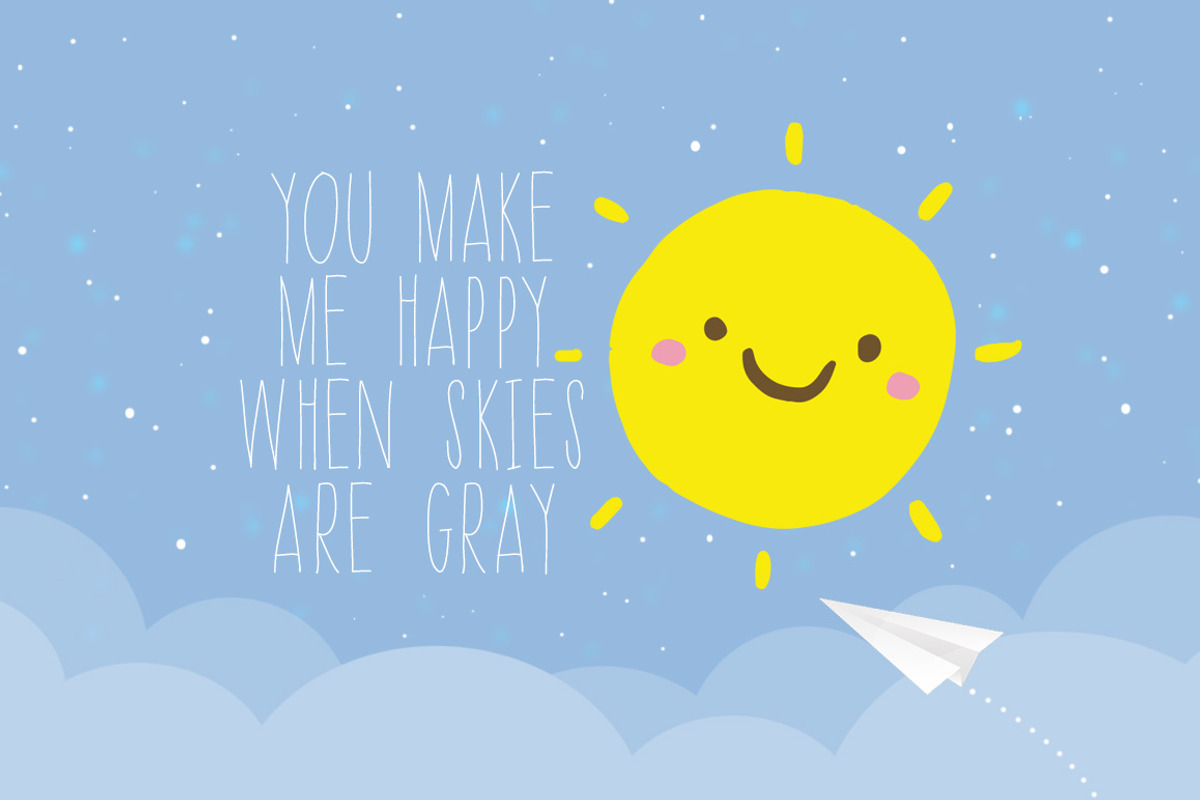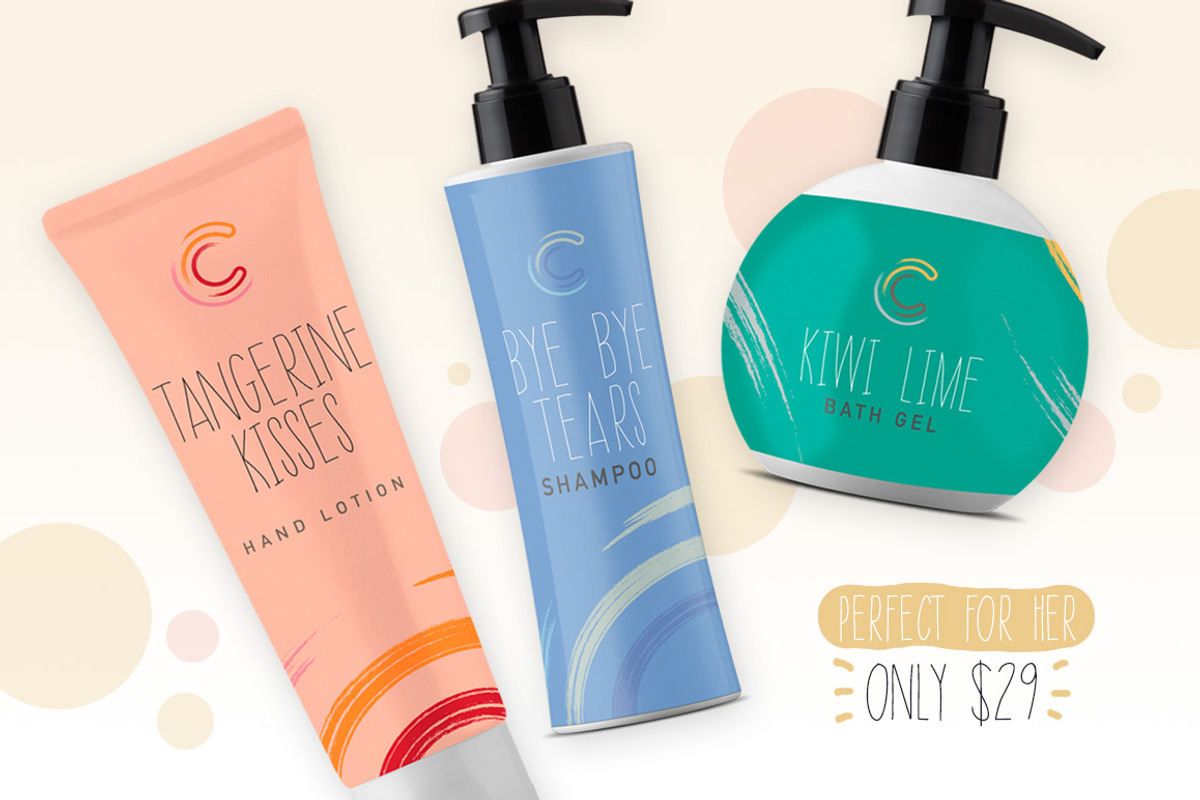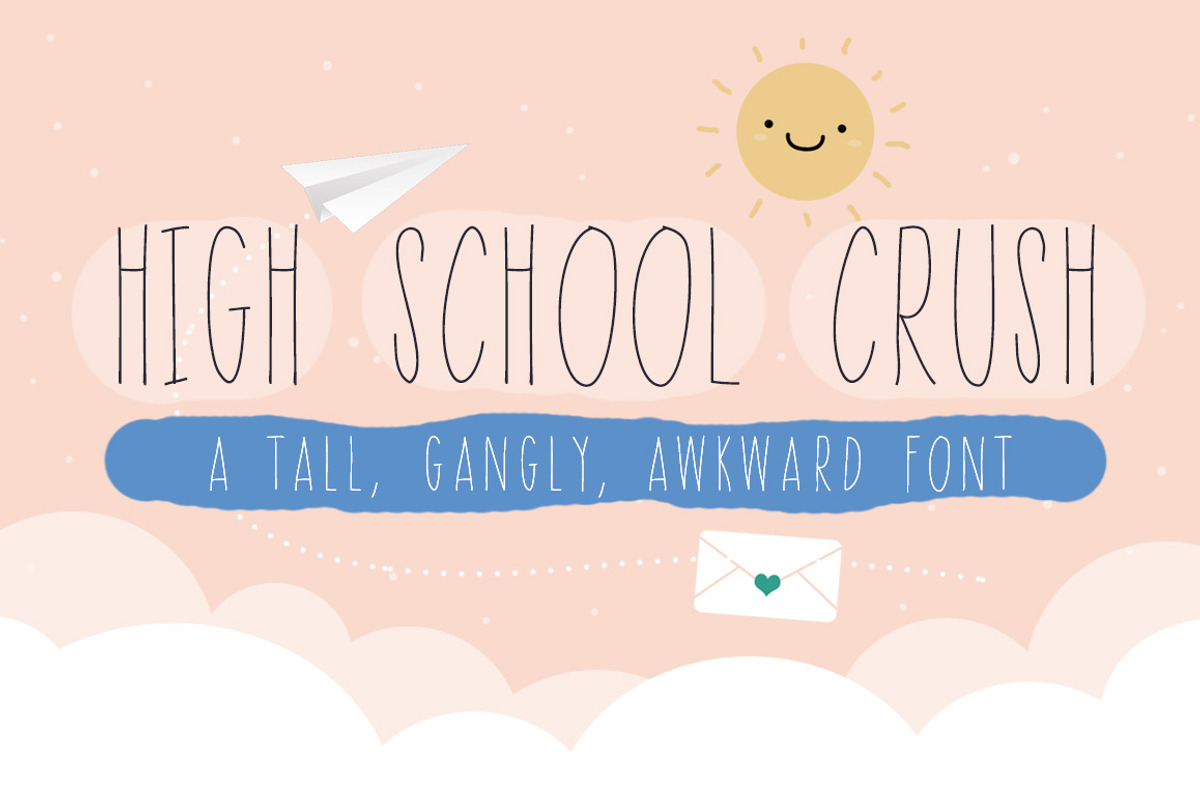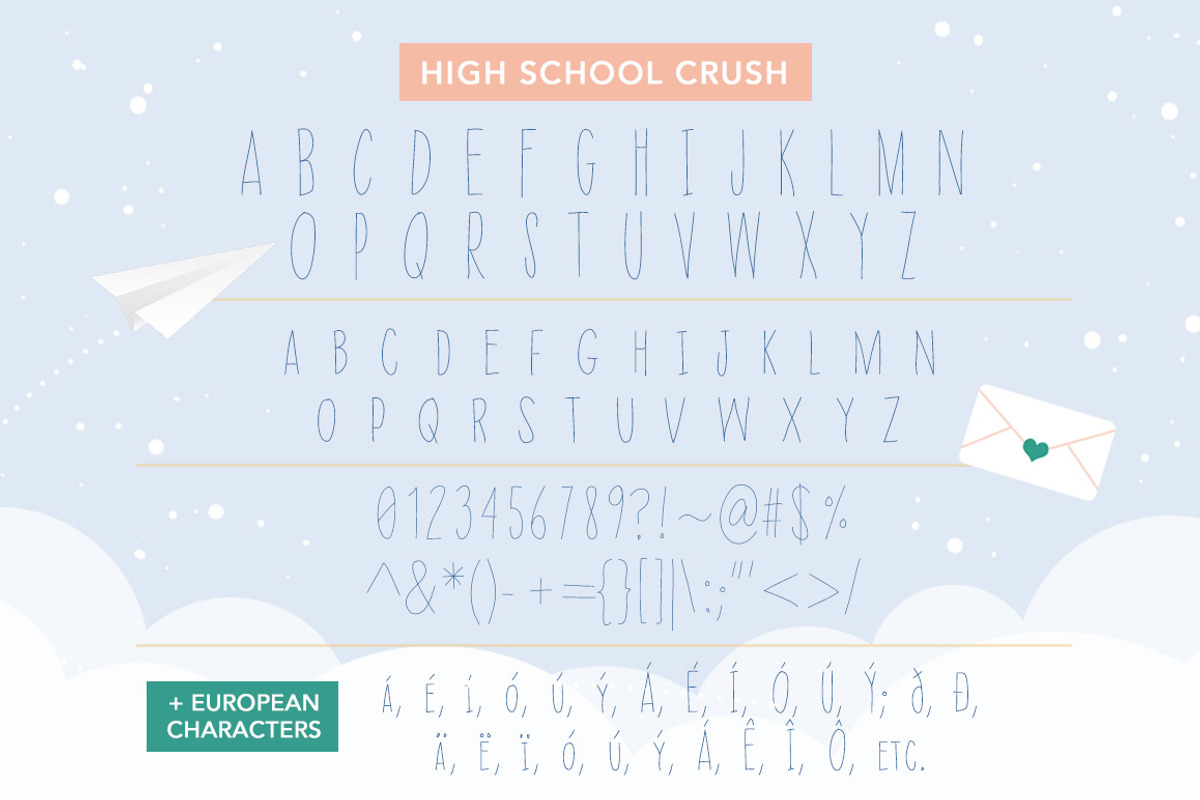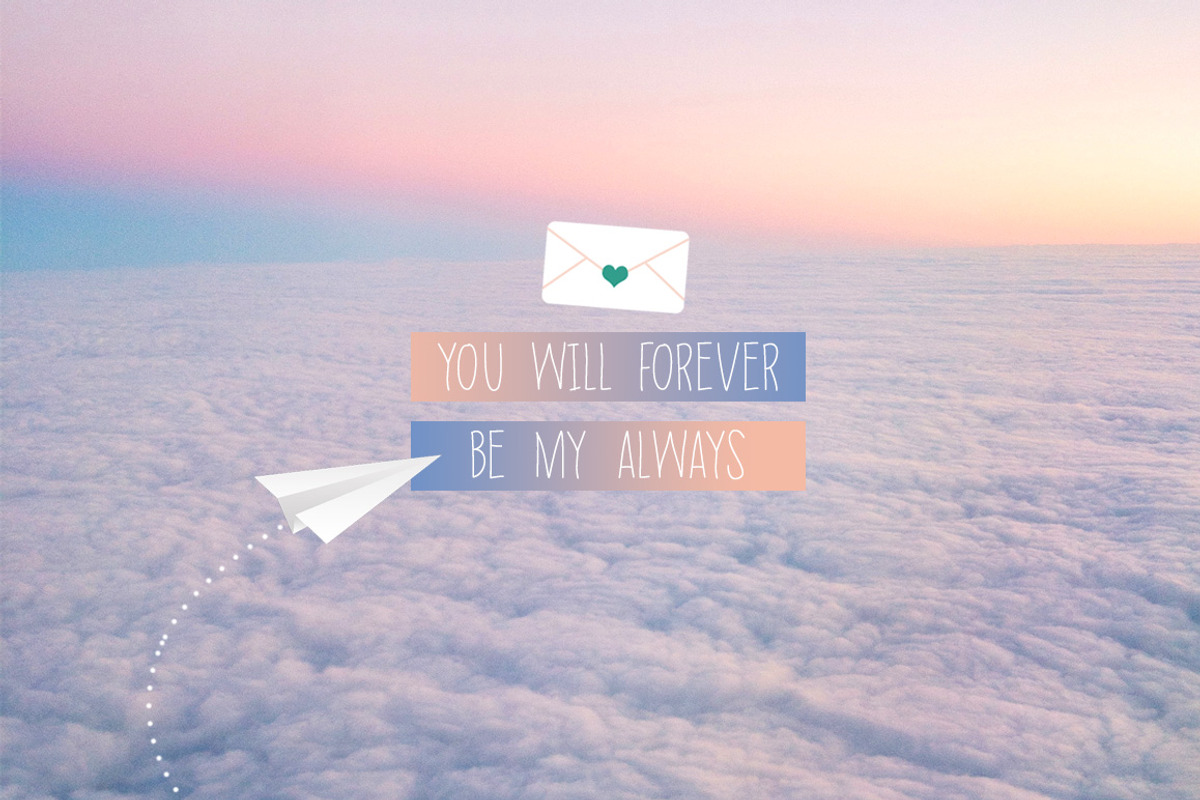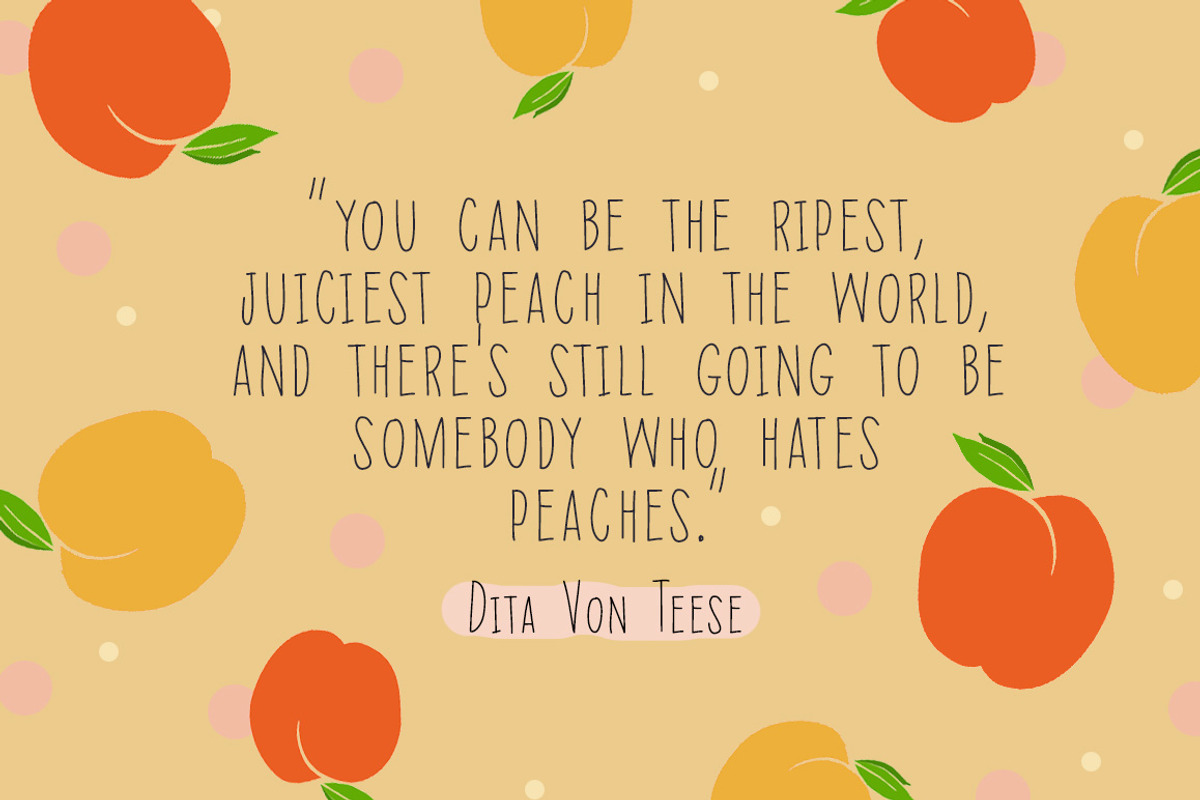
High School Crush Font
Throwback to your high school days when teenage romance was sweet but awkward, just like you! High School Crush is a thin, simple font that takes you back to a life filled with the naivety of youth, with very little cares in the world :) Perfect for song lyrics, mix tapes, posters for your bedroom wall, social media graphics professing your love for your crush, etc etc etc...
- All uppercase
- All lowercase
- Numerals and punctuation
- European language characters